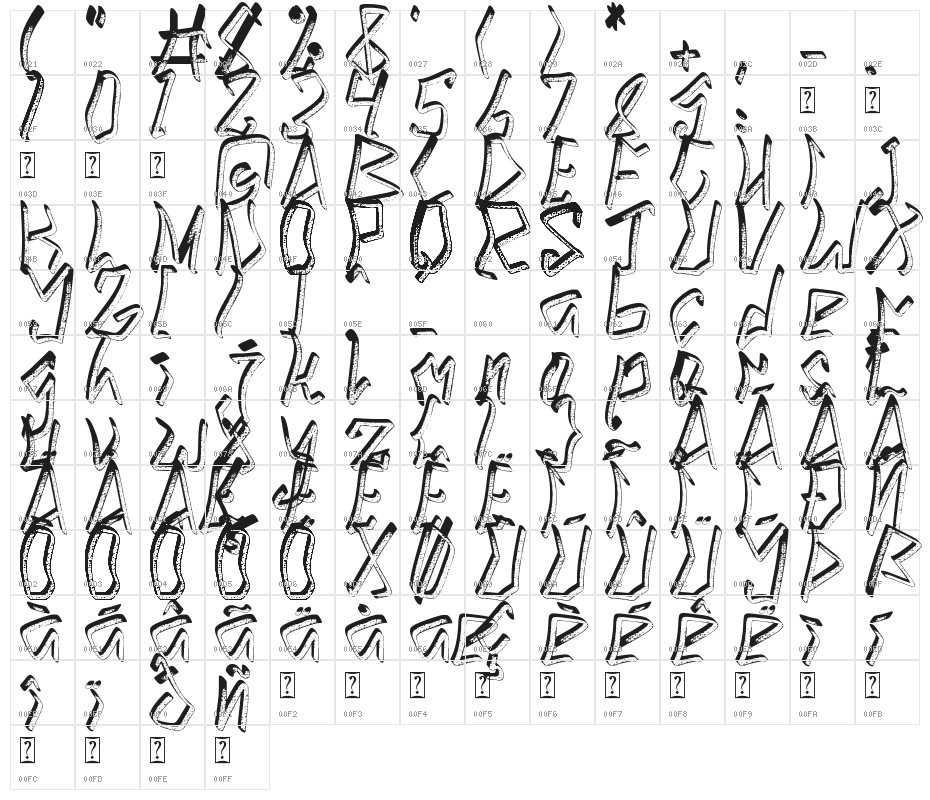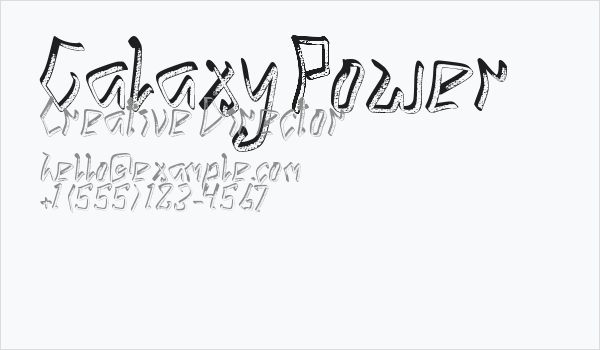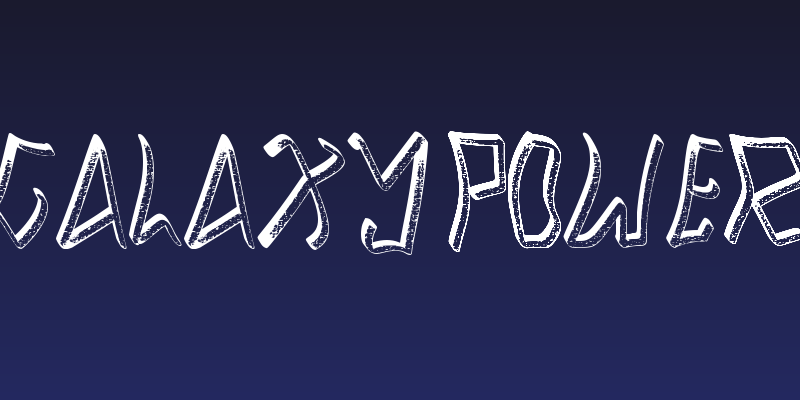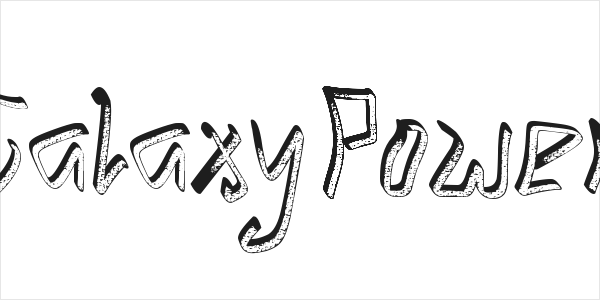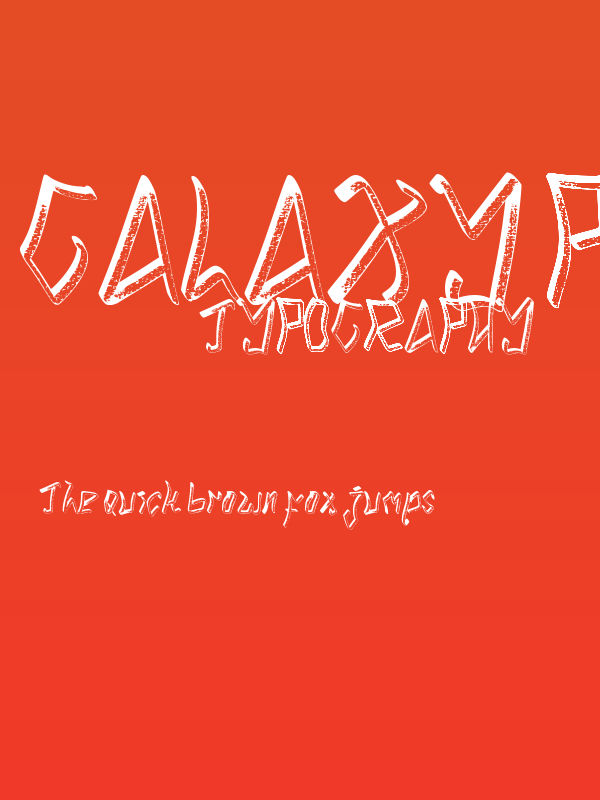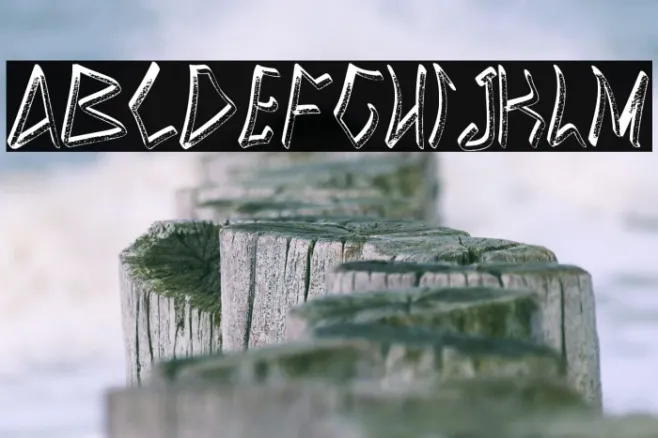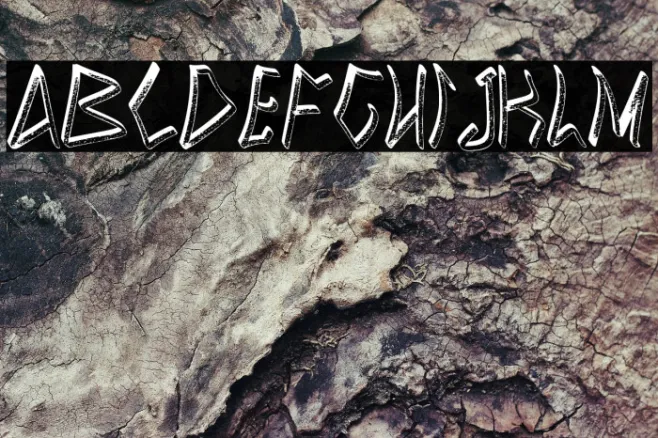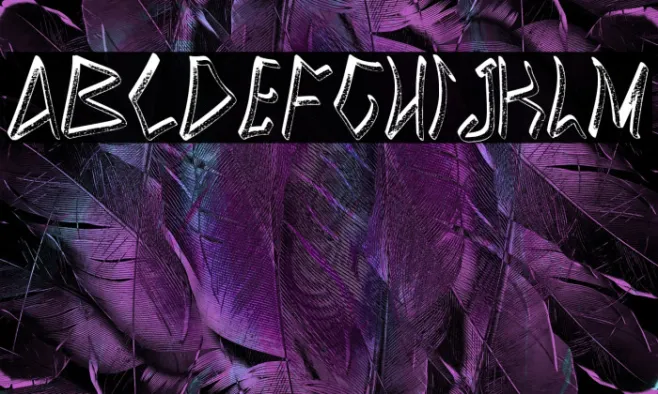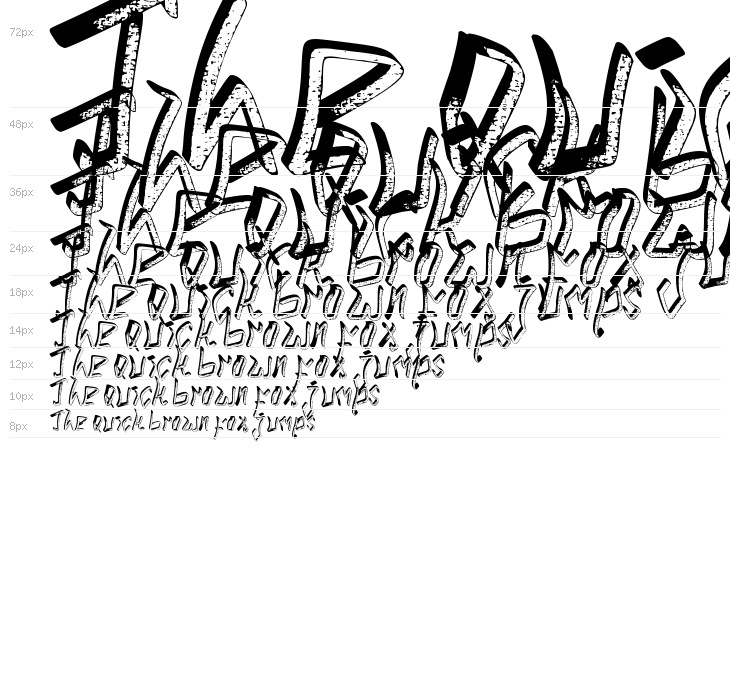
Galaxy Power Font
Galaxy Power Description
This font features a dynamic and edgy style with a hand-drawn appearance. The letters are characterized by bold, uneven strokes and a textured, sketch-like quality that gives them a raw, artistic feel. The uppercase and lowercase letters maintain a consistent style, with angular shapes and varying line thicknesses that create a sense of movement and energy. The numbers and special characters follow the same aesthetic, ensuring a cohesive look across all elements. This font is ideal for projects that require a bold, expressive touch, such as posters, album covers, or creative branding.
| Proposed Projects | Ideal for posters, album covers, creative branding, and any project needing an expressive, artistic touch. |